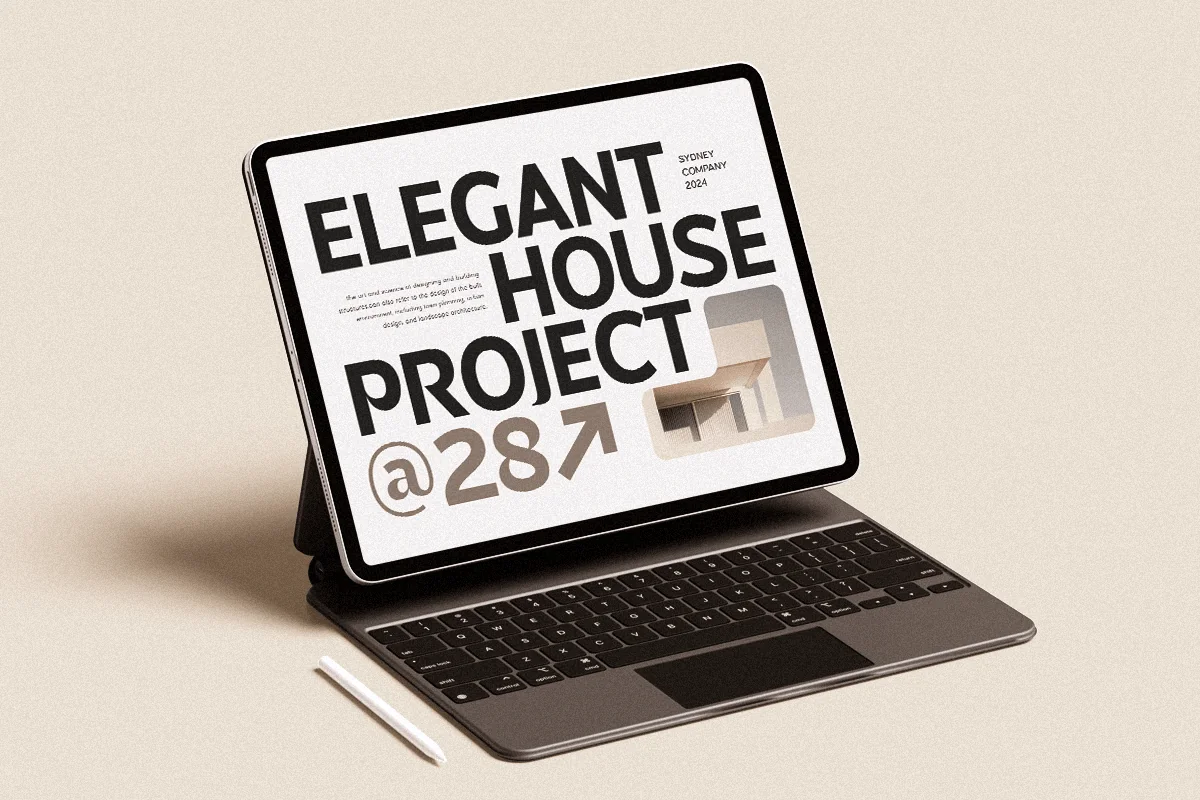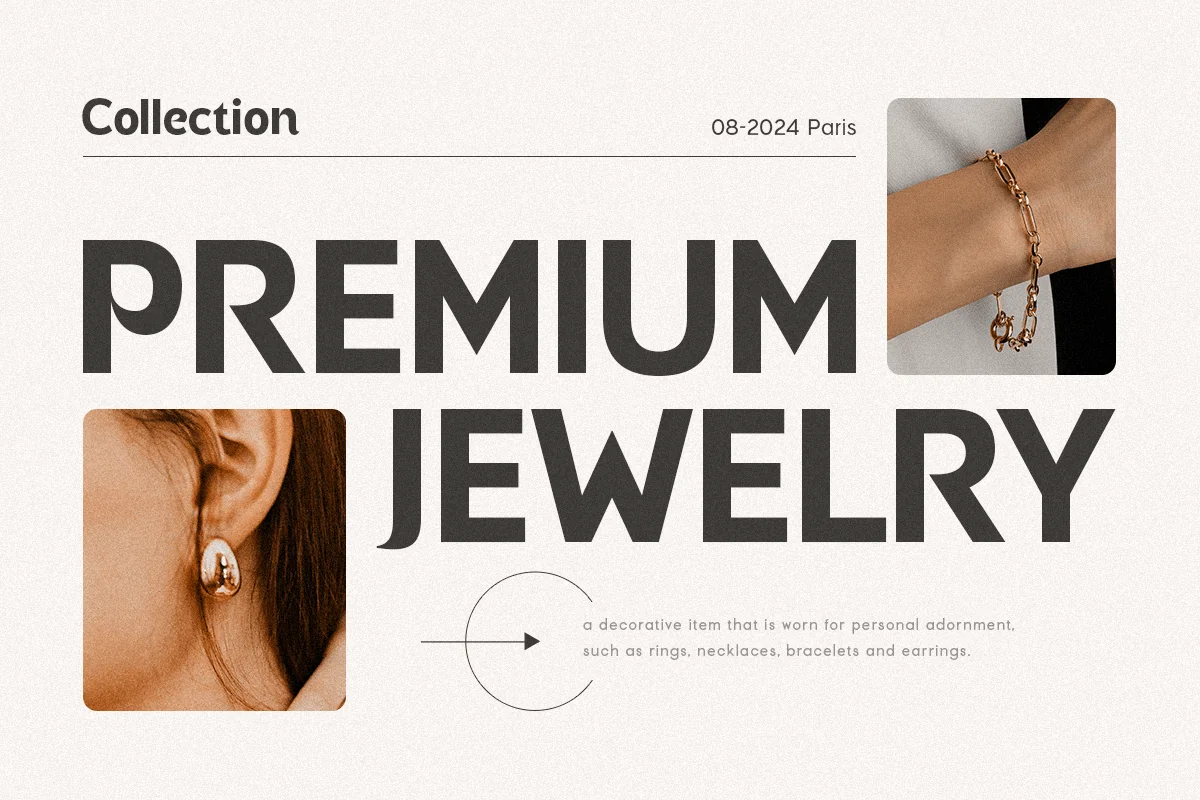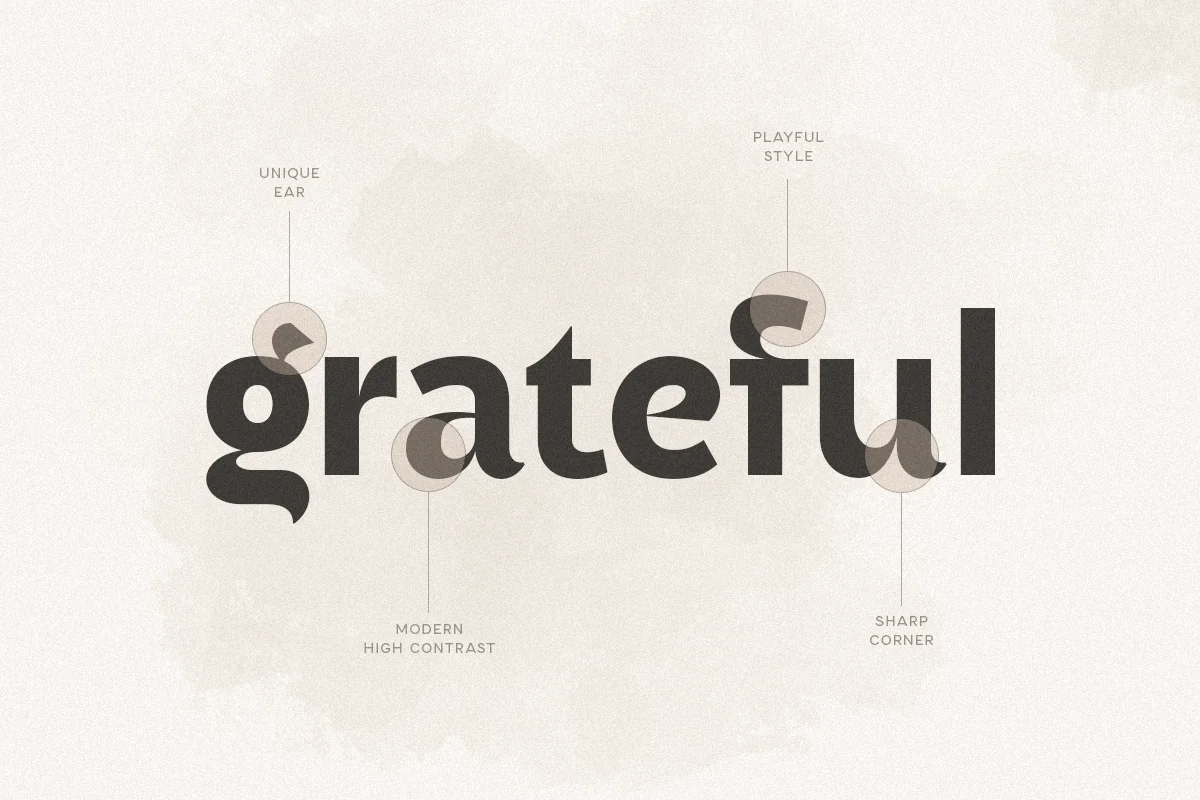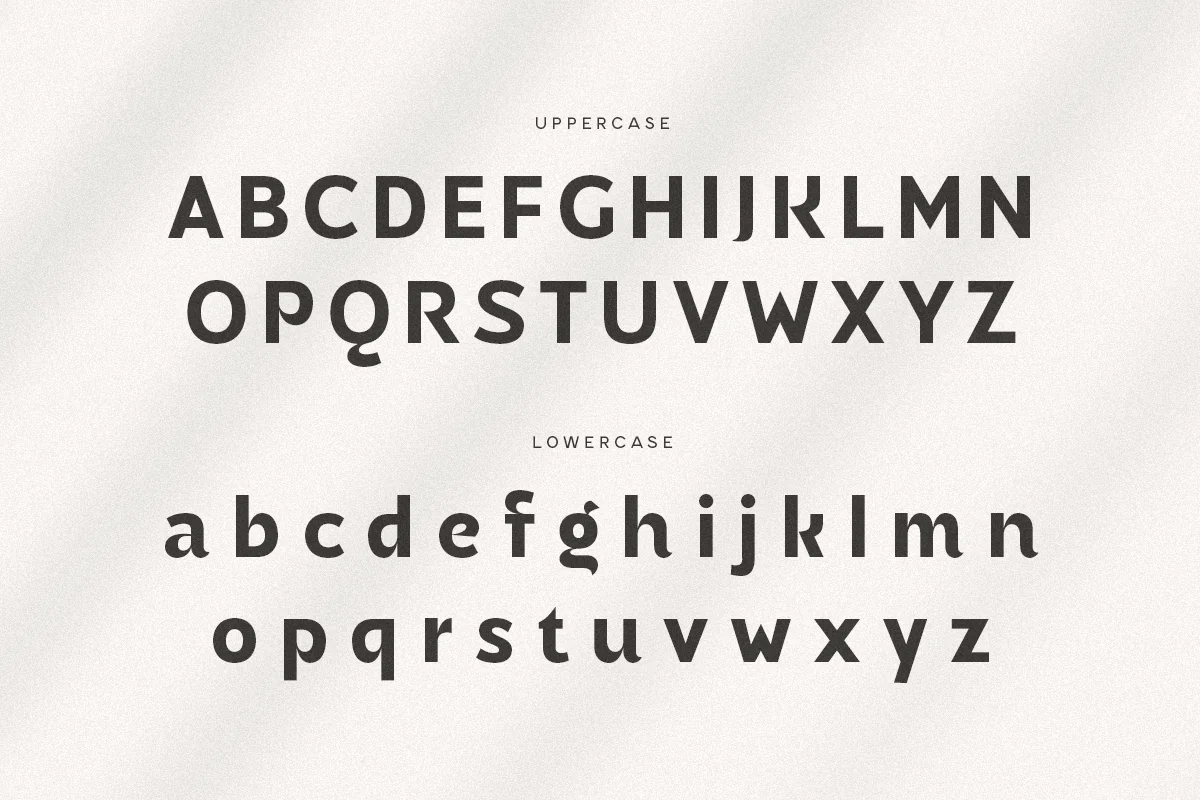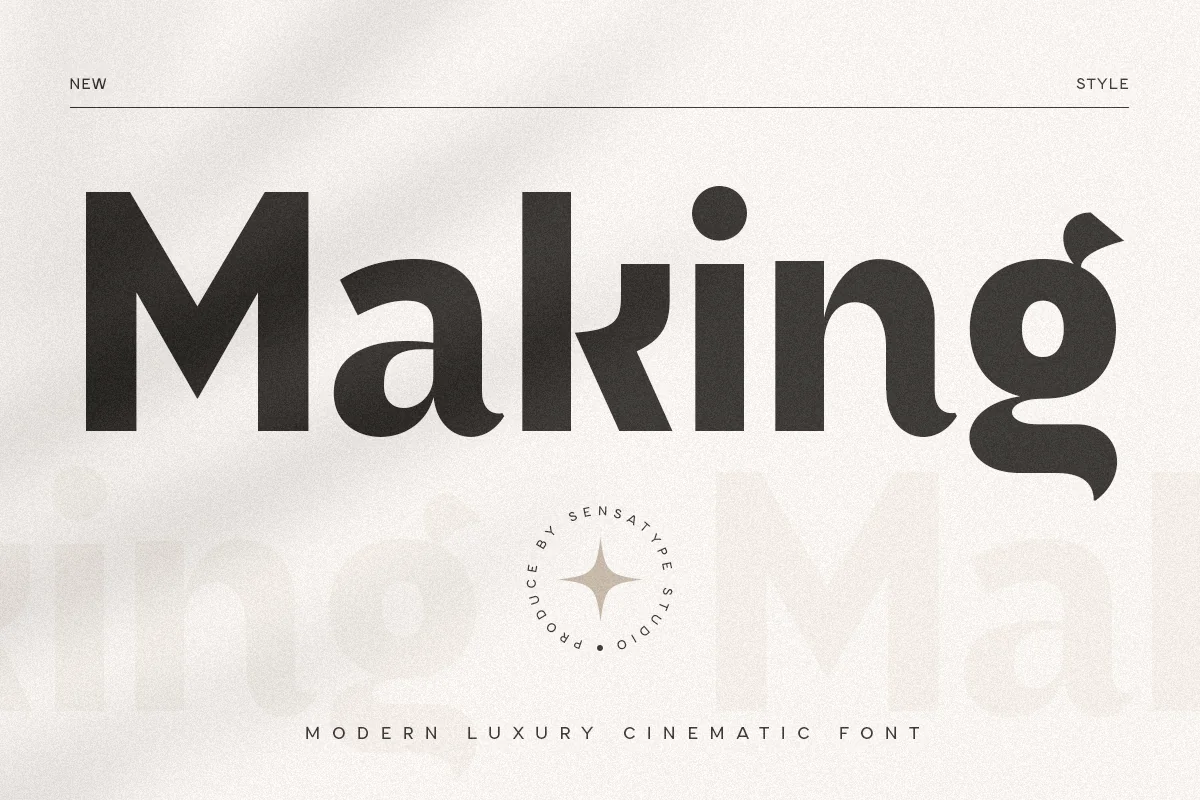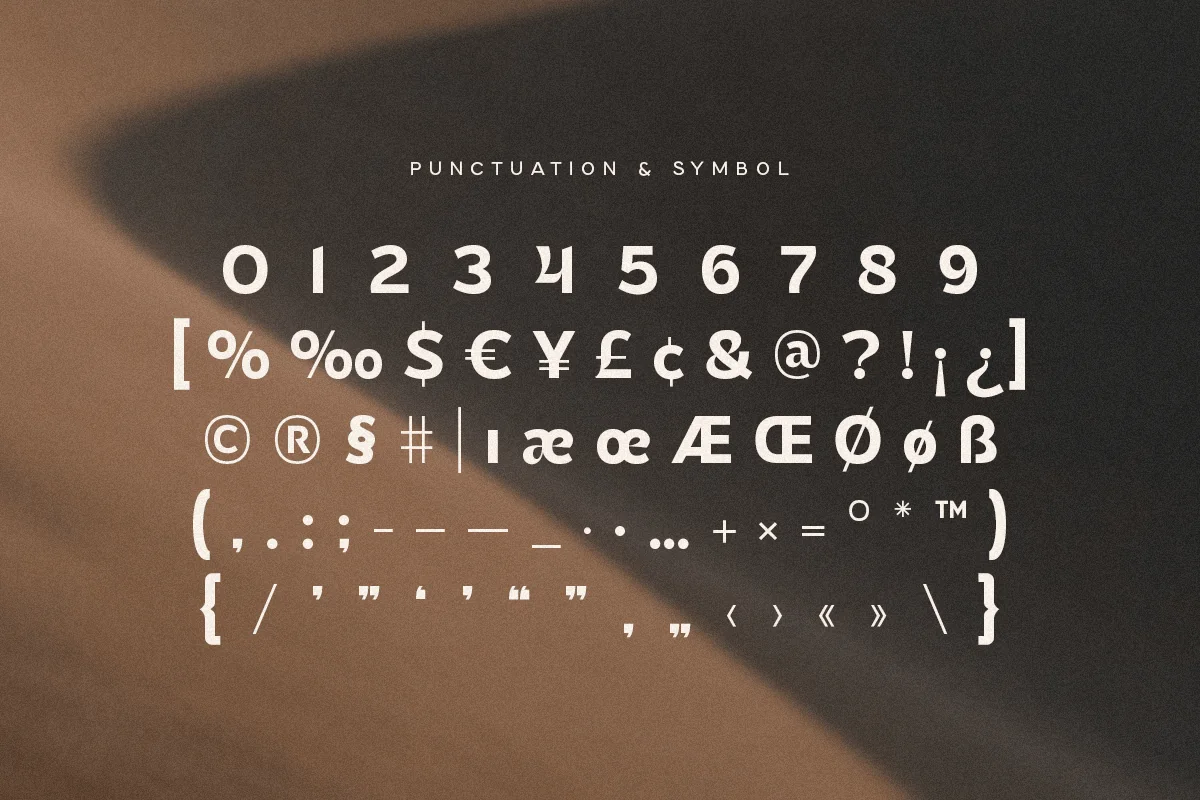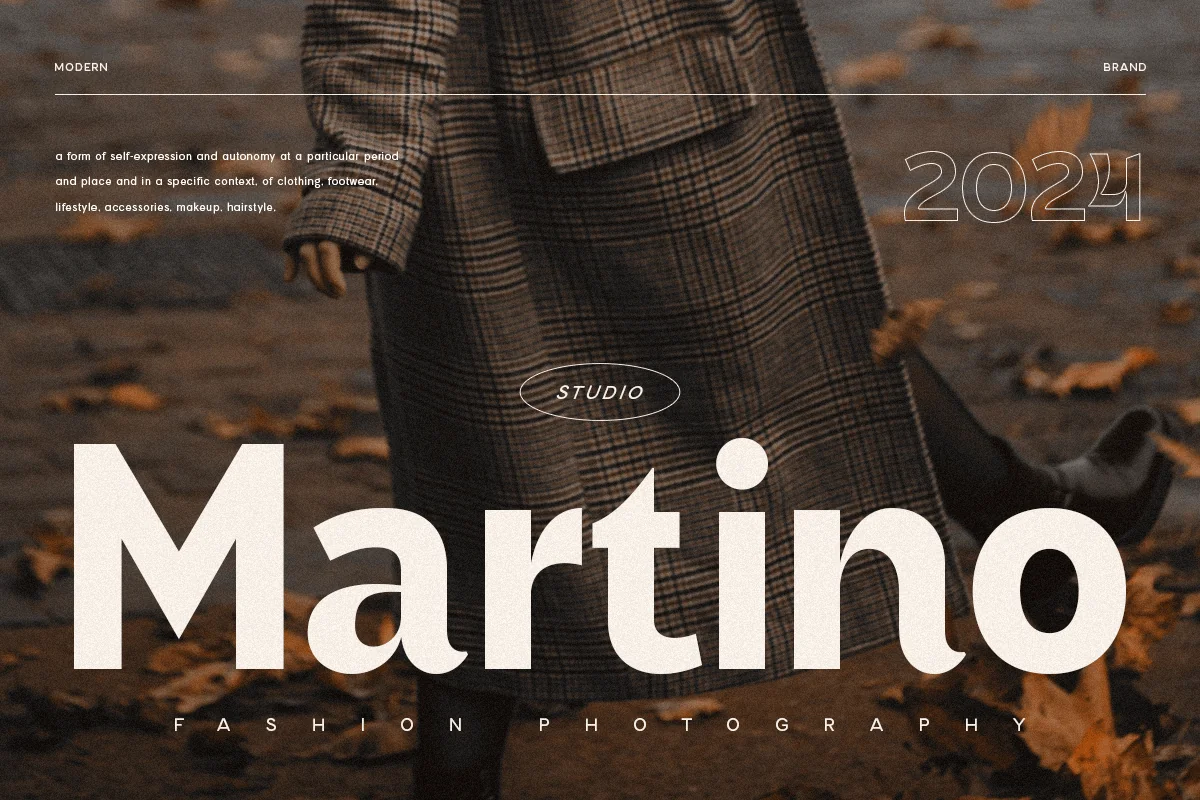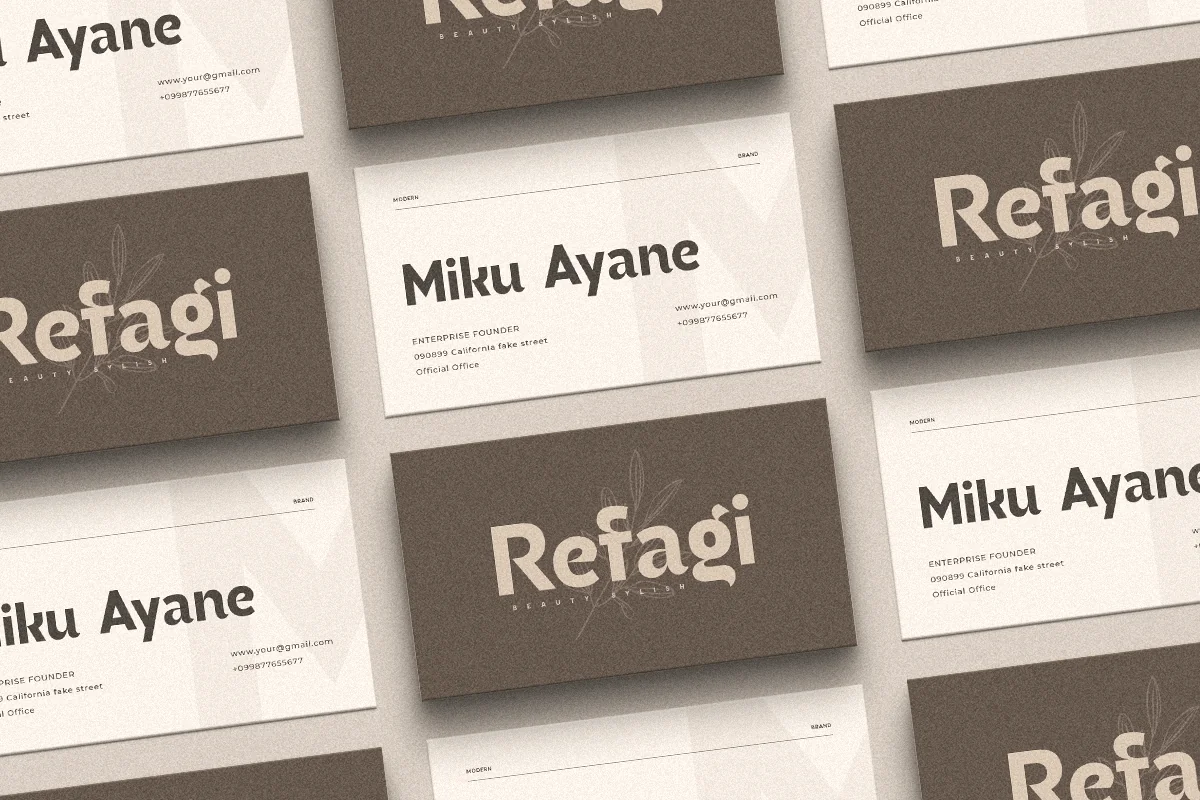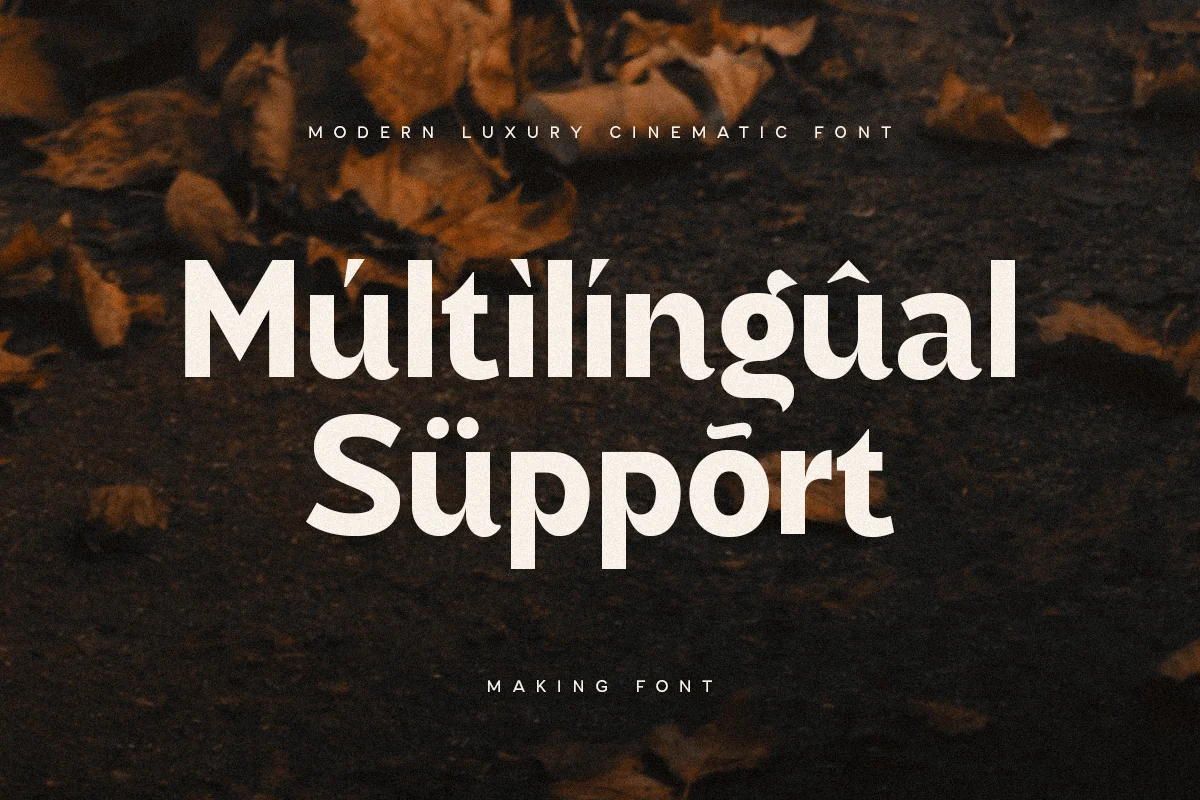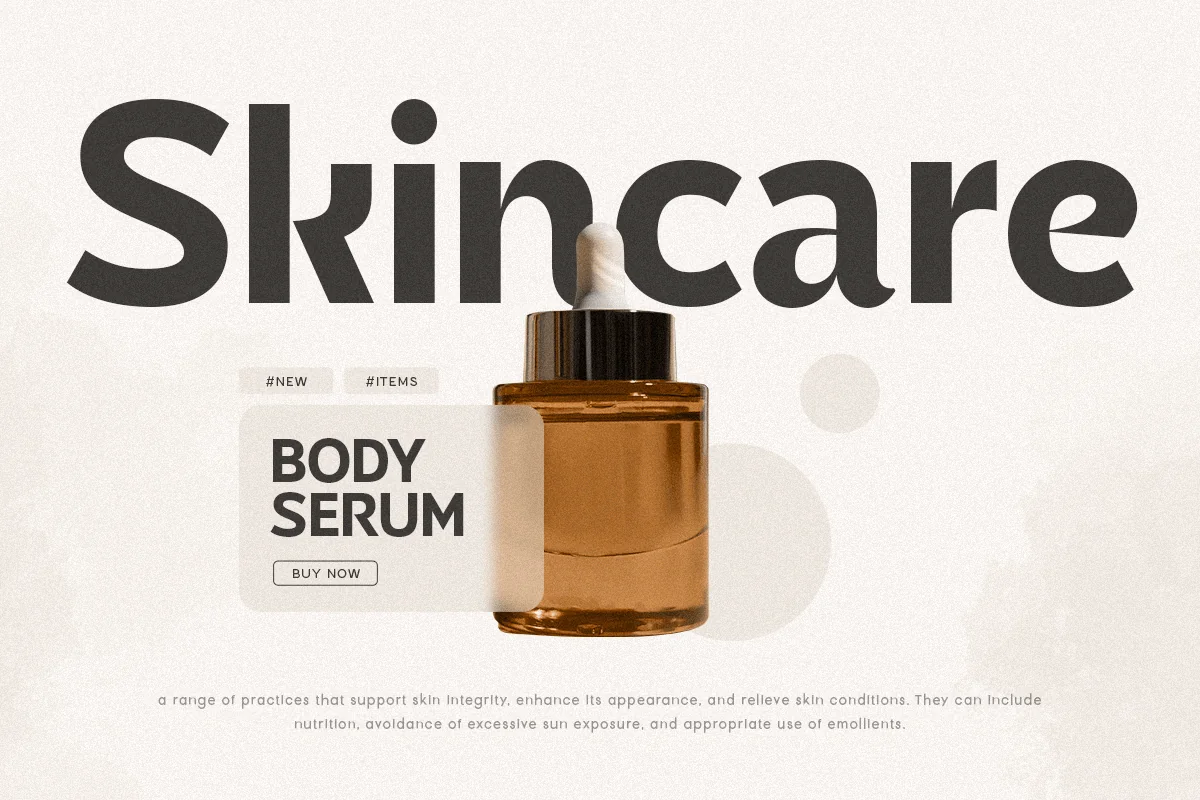
Making – Modern Luxury Cinematic Font
A Modern Logo Luxury Font that we created special for Luxury and Fashion branding needs, with extra characters unique shape will be ready to add value of your brand. It so nice to leverage designer or product owner that need solutions to make their design look more classy and modern. And specially for this font, We prepared any unique characters to help you create unlimited variations for your creative needs.
- Ready with Lowercase and Uppercase characters